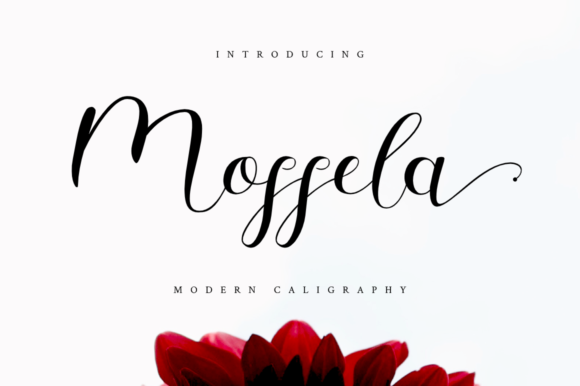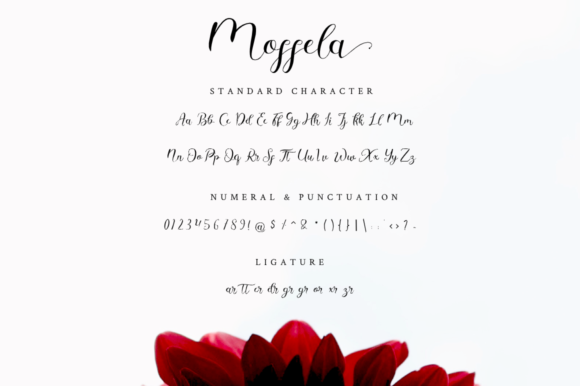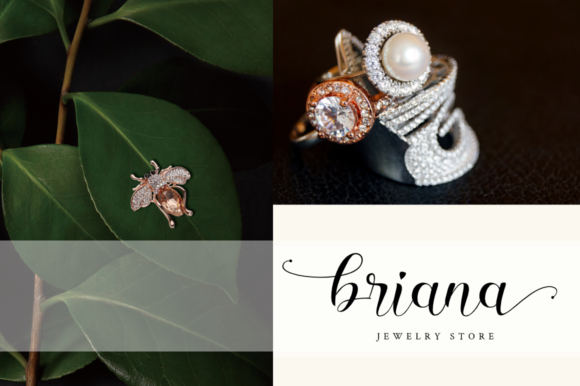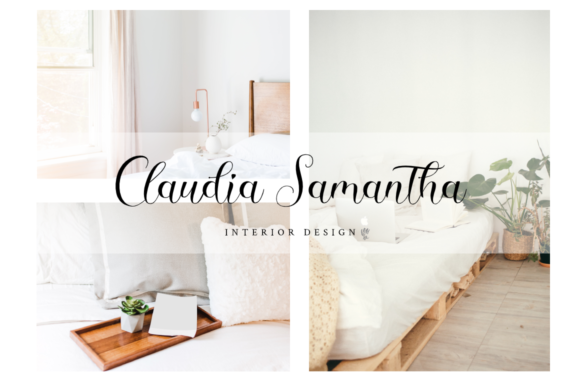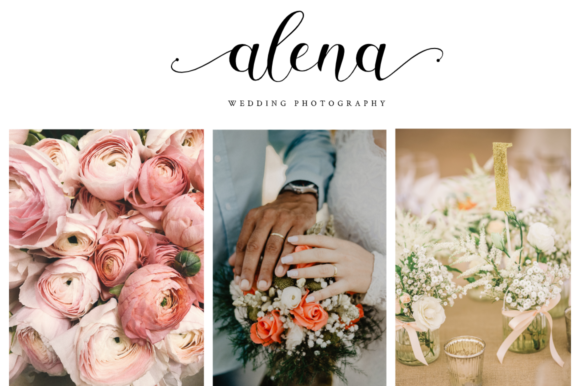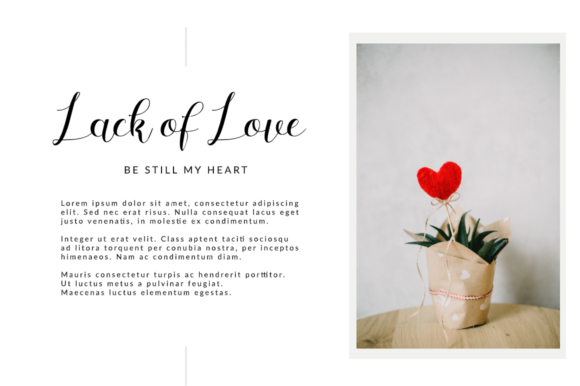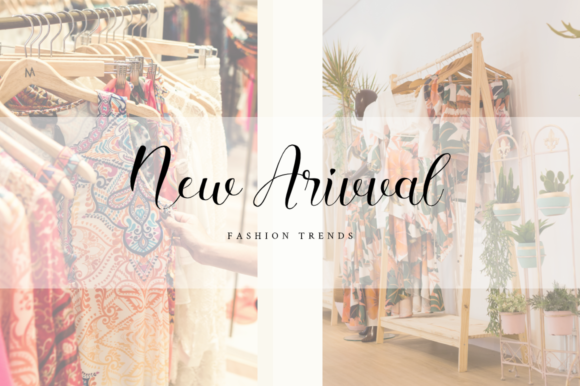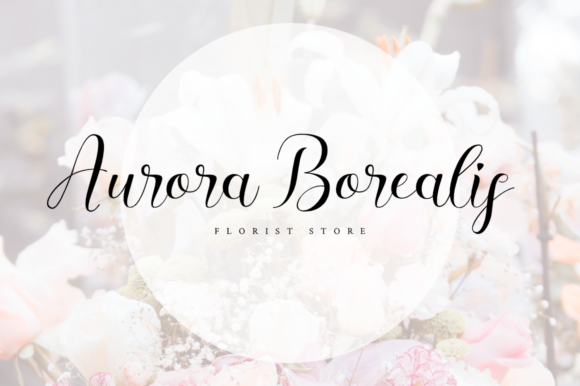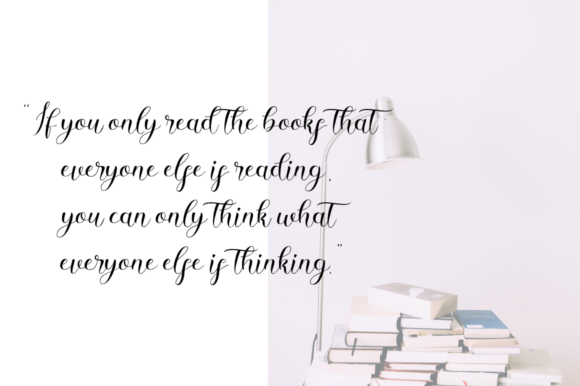
Mosella Font
About Mosella Font
Mosella is a beautiful script that is beautiful, classy, moody, and classical. It is perfectly suited for any project!